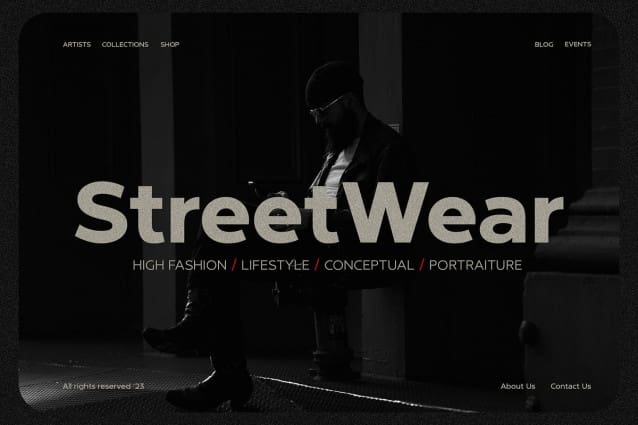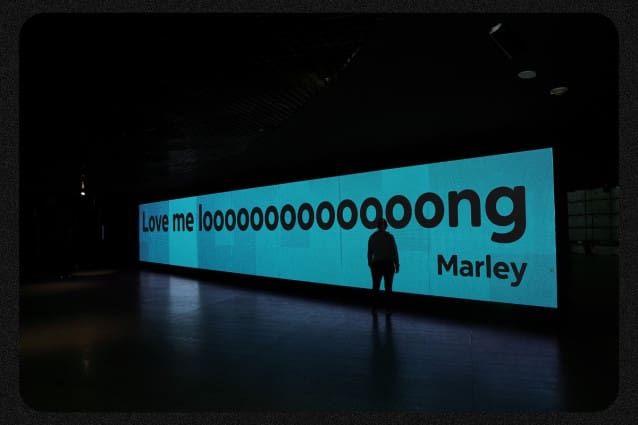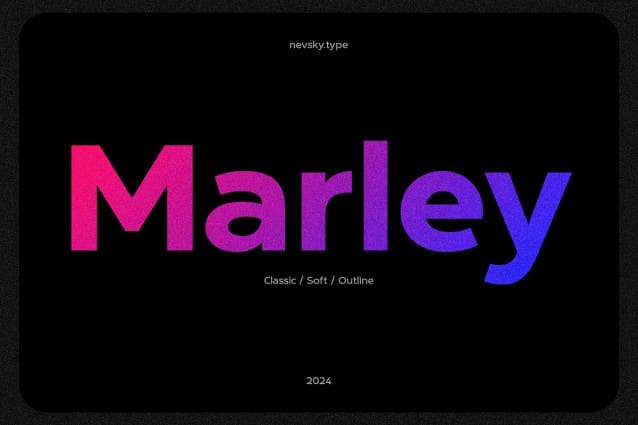
NT Marley Font Family
NT Marley Font Family is a new sans serif fontfamily. This font needs to be in your collection and is perfect for your next design project.
NTMarley supports over 200 Latin-based languages.